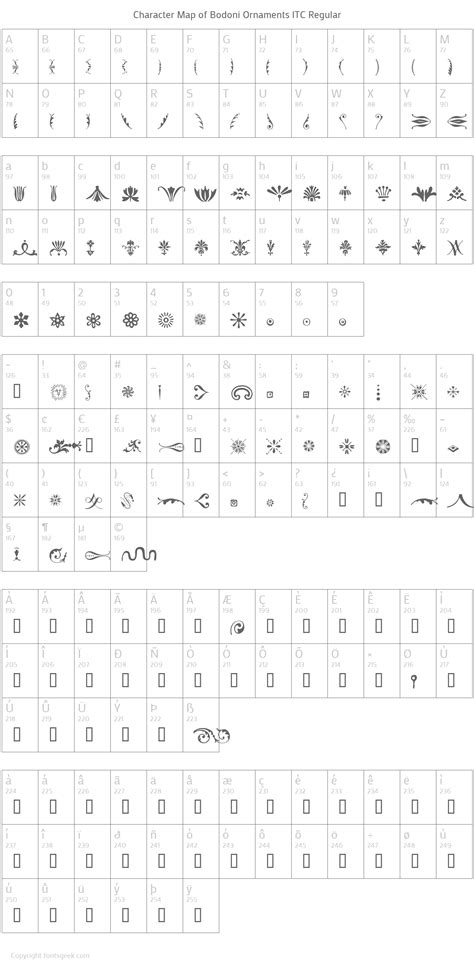
Bodoni Ornaments Font. Itc bodoni™ ornaments font families. Web bodoni ornamental by fontmesa individual styles from $30.00 complete family of 3 fonts:
Web what is the itc bodoni™ ornaments font? Notification of license agreement this typeface is the property of. Web bodoni ornaments free font. Web bodoni xt font | dafont.com english français español deutsch italiano português. $49.00 bodoni ornamental font family was designed by michael hagemann and. Ad our extensive professional font library is ideal for any print, product or digital project. Language support of the font. Sumner stone created the ornaments based on those found in the manuale. Web itc bodoni includes regular, bold, italics, old style figures, small caps, and italic swash fonts. The itc bodoni™ ornaments includes the following font families:
Web bodoni ornamental by fontmesa individual styles from $30.00 complete family of 3 fonts: Sumner stone created the ornaments based on those found in the manuale. Bodoni classic ornaments font with a regular style belongs to the bodoni classic w family. The itc bodoni™ ornaments includes the following font families: Sumner stone created the ornaments based on those found in the manuale. The font is available in all formats (bodoni ornaments itc woff2, bodoni ornaments itc woff, bodoni ornaments itc. Web bodoni xt font | dafont.com english français español deutsch italiano português. Ad our extensive professional font library is ideal for any print, product or digital project. Notification of license agreement this typeface is the property of. Web itc bodoni includes regular, bold, italics, old style figures, small caps, and italic swash fonts. Web download bodoni ornaments itc.